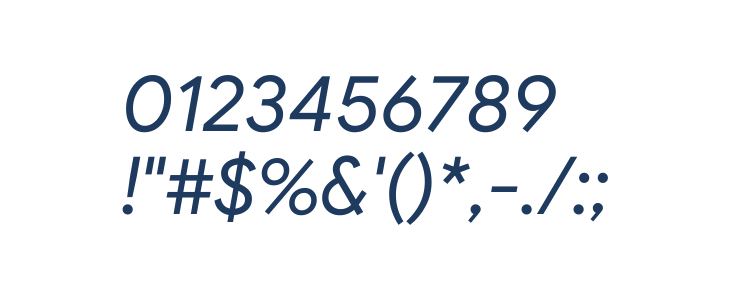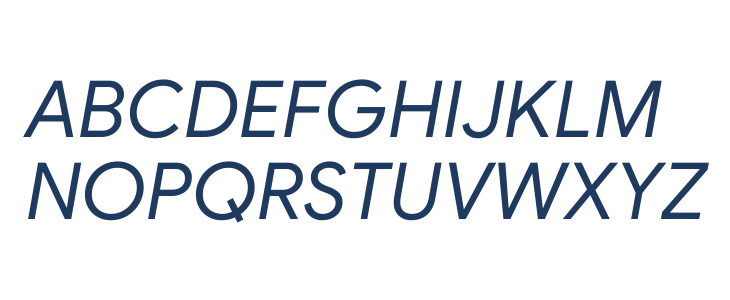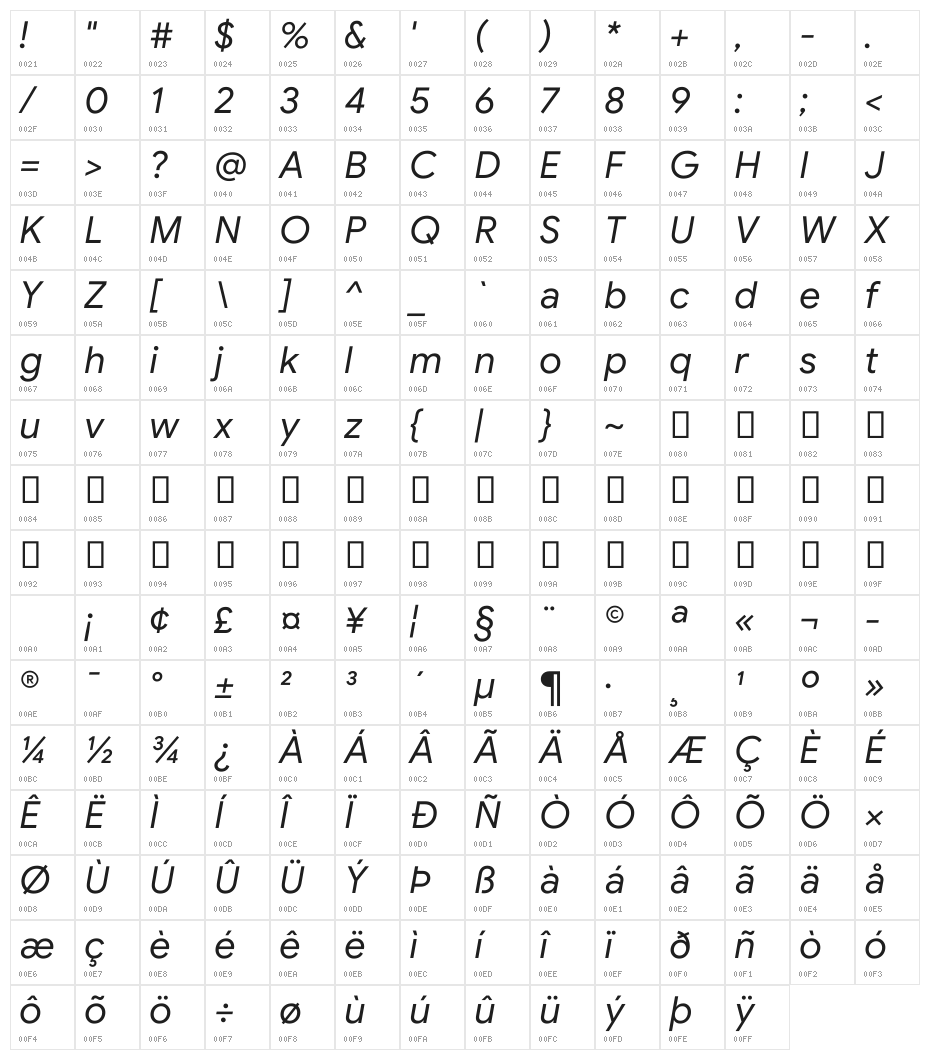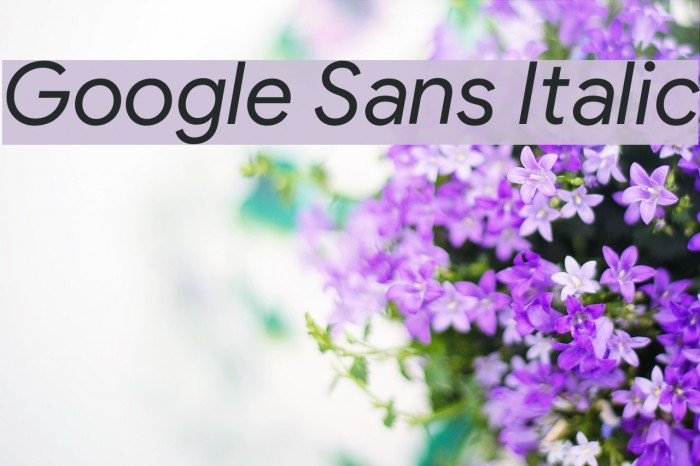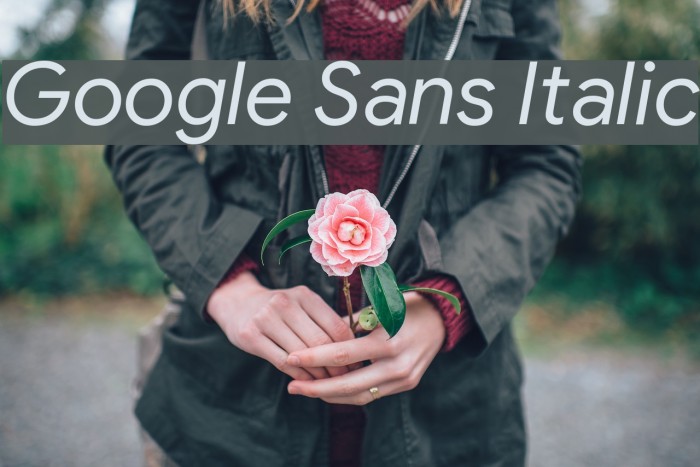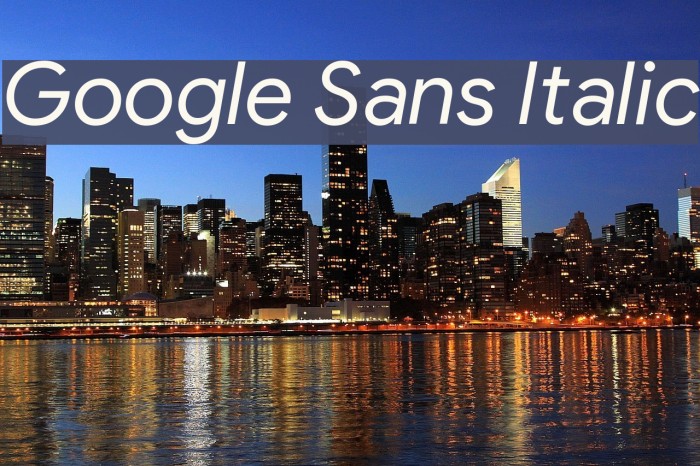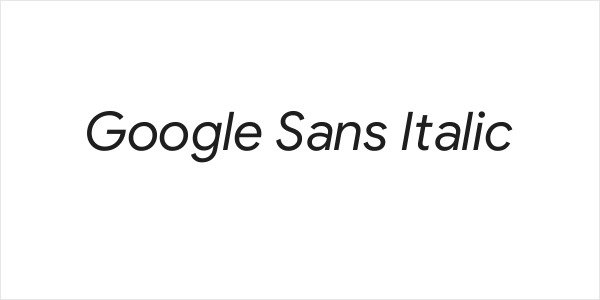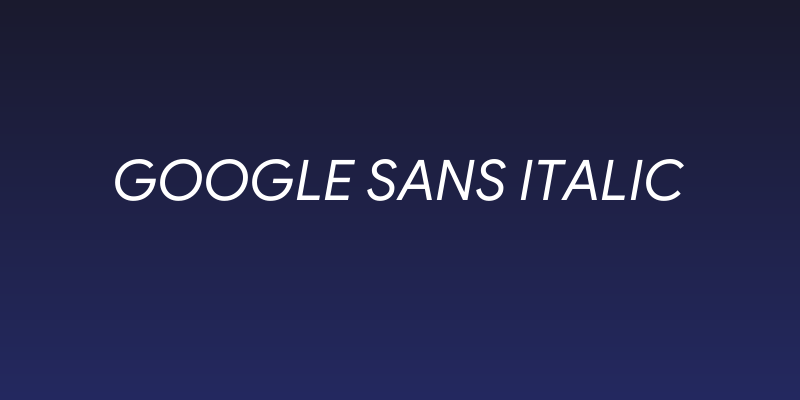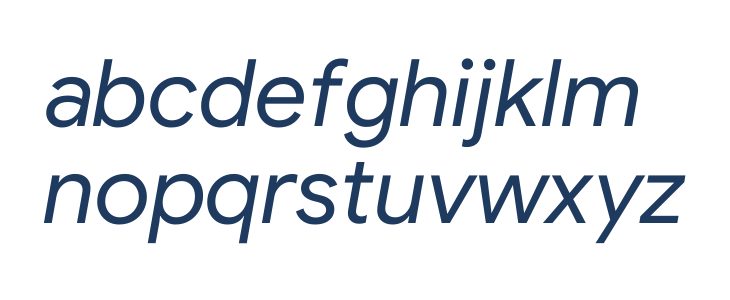
Google Sans Italic Font
Google Sans Italic Description
This font features a clean and modern sans-serif design with a slight italic slant, giving it a dynamic and forward-moving appearance. The characters are well-proportioned, with smooth curves and a uniform stroke width that maintains readability across various sizes. The uppercase letters are bold and assertive, while the lowercase letters are more rounded and approachable. The numerals are clear and distinct, making them suitable for both digital and print applications. The special characters are designed to complement the overall style, ensuring consistency throughout.
| Proposed Projects | Ideal for tech branding, modern websites, digital interfaces, and contemporary advertising. |